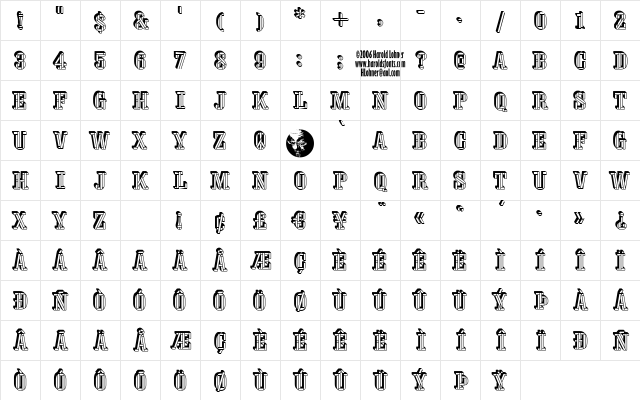
Oaktag 3D Regular
Design Context for Oaktag 3D
Oaktag 3D is a composed and adaptable typeface that performs quietly and consistently across a wide range of design contexts.